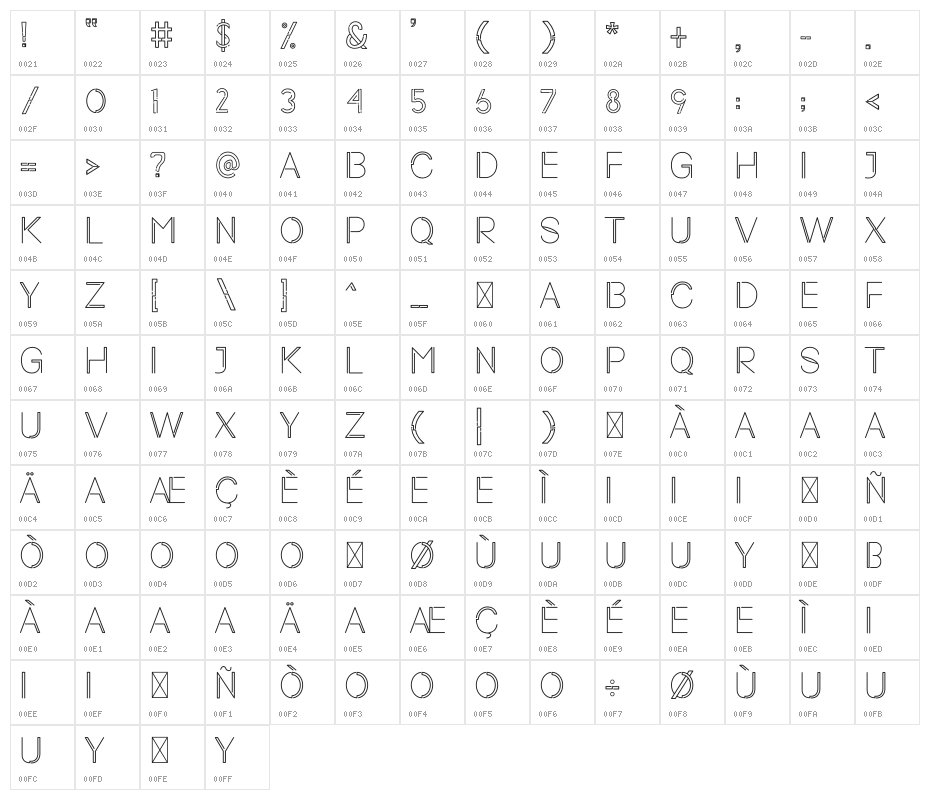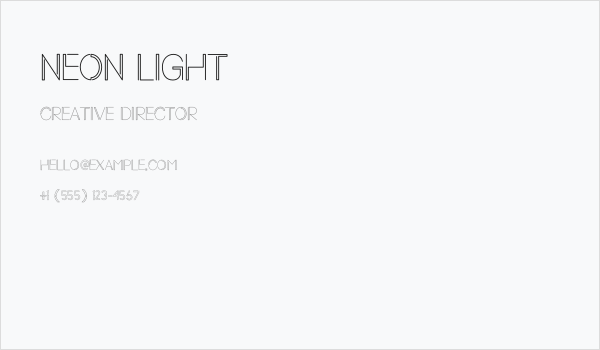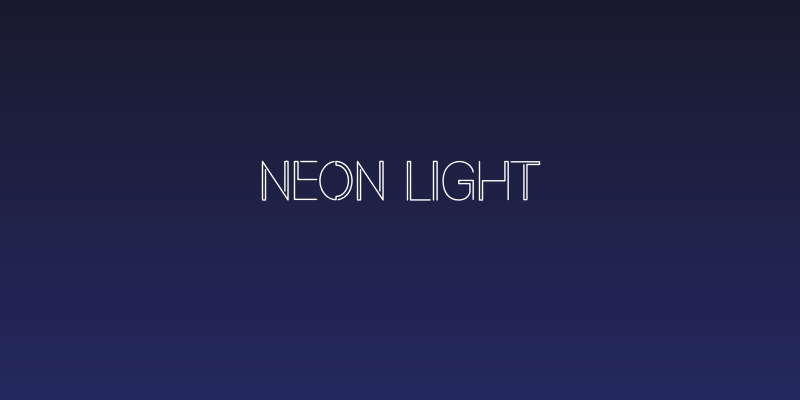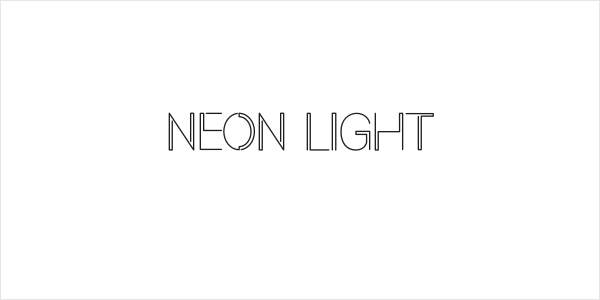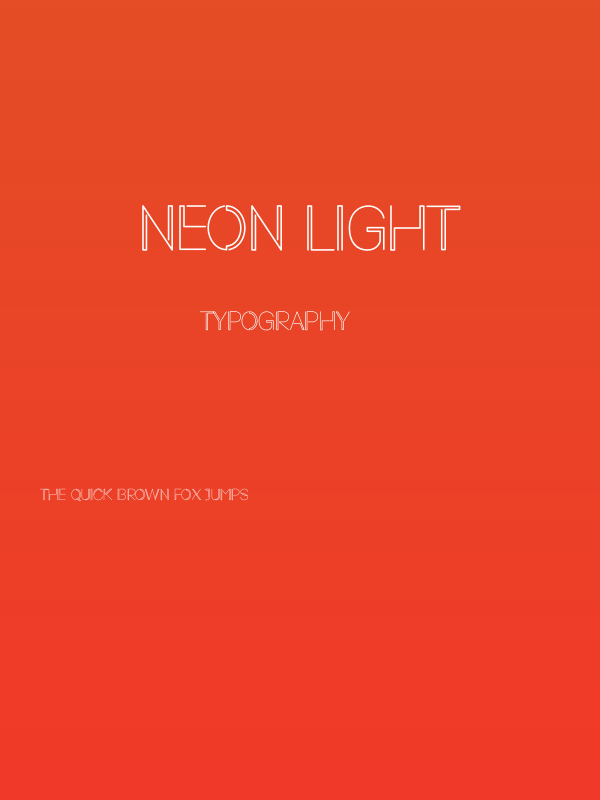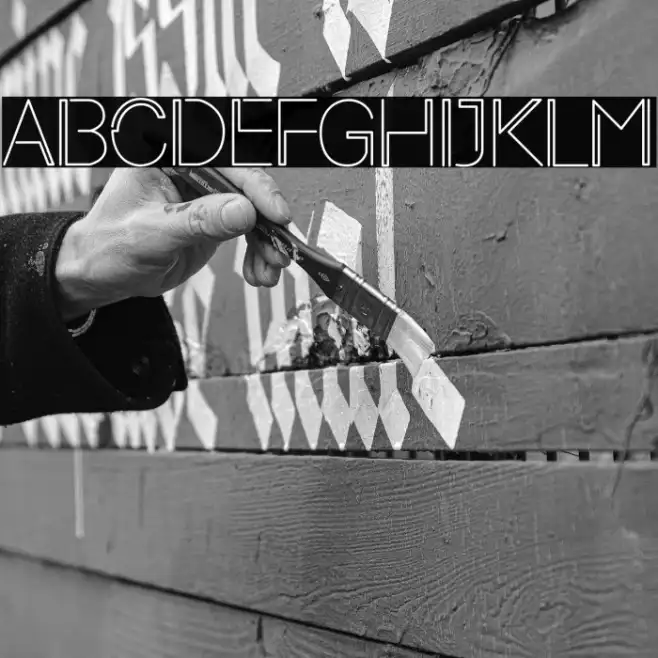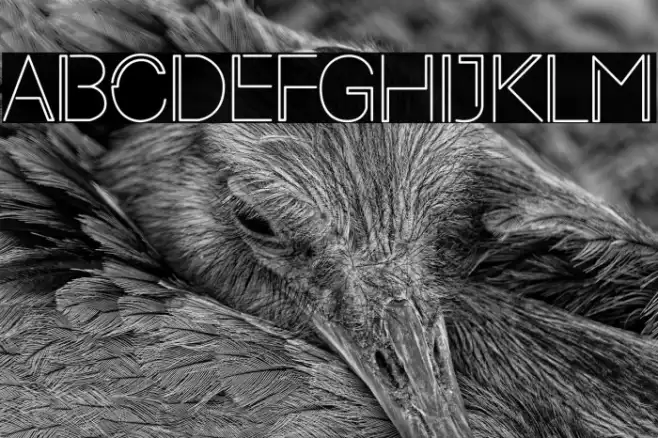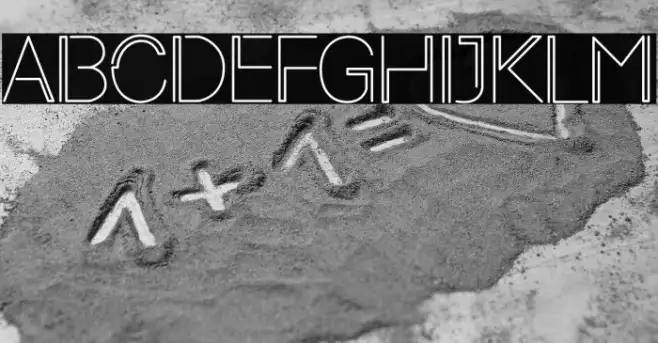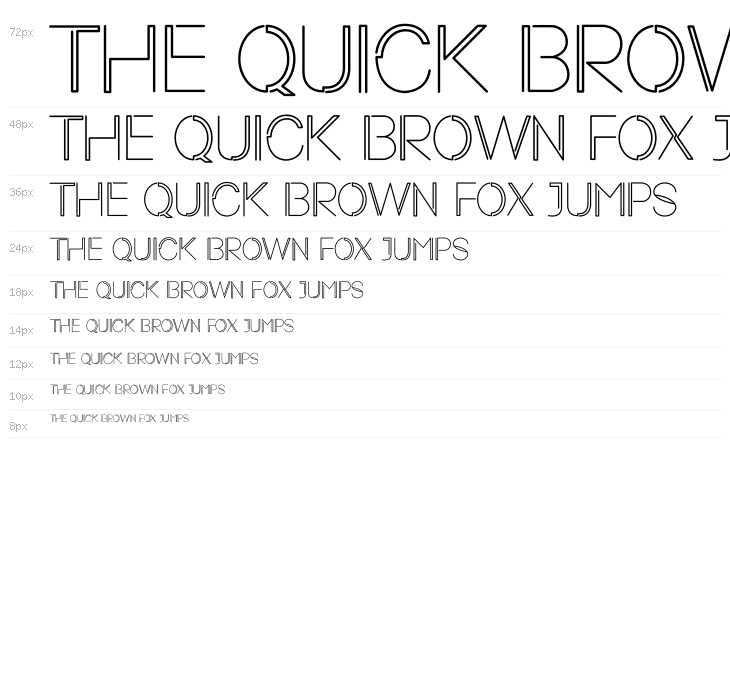
Neon Light Font
Neon Light Description
This font features a modern, geometric design with clean, straight lines and sharp angles. The characters are outlined, giving a neon-like appearance that is both striking and contemporary. The uppercase and lowercase letters maintain a consistent style, with a focus on symmetry and balance. The numerals and special characters follow the same design principles, ensuring uniformity across the entire character set. This font is ideal for projects that require a futuristic or high-tech aesthetic, as its unique style captures attention and conveys a sense of innovation.
| Use Case | Headlines, Logos, Digital media |
| Proposed Projects | Ideal for neon signs, futuristic branding, tech-related projects, and digital media. |